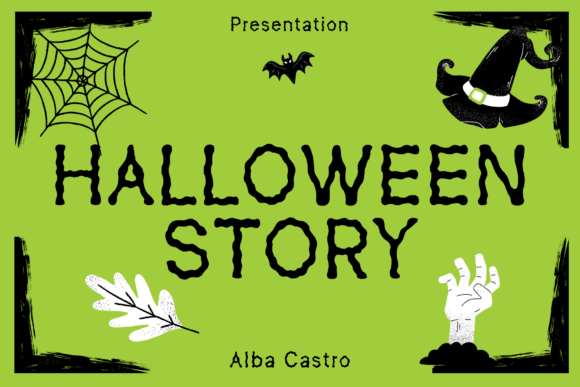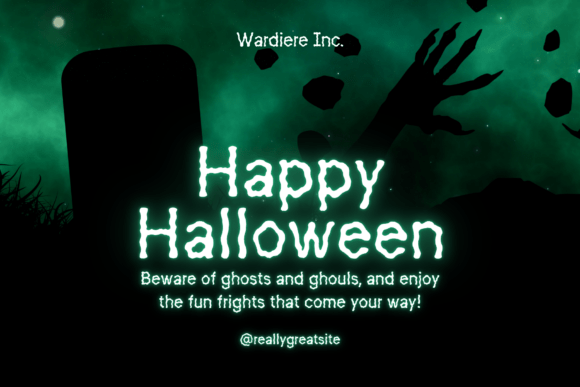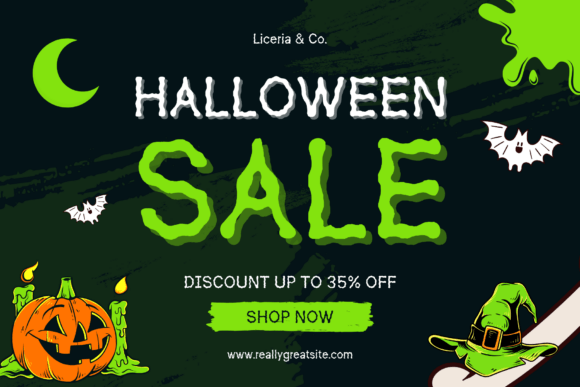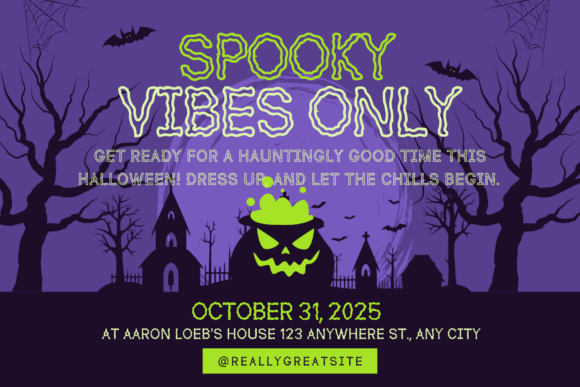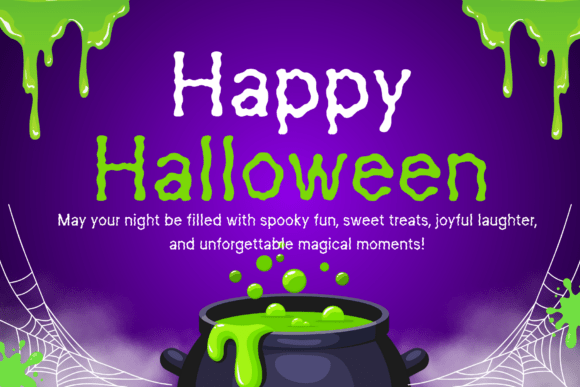
Introduction to Slime Ghost Font
Have you ever been working on a creative project, pouring your heart and soul into it, only to feel like something’s missing? That’s exactly what happened to me when I was designing a Halloween-themed poster for a friend’s party. I wanted something that would grab attention, something that would make people feel like they were stepping into a spooky world. That’s when I stumbled upon the Slime Ghost Font – and everything changed.
This font is more than just a design resource; it’s a game-changer for any creative project that needs a touch of mystery and excitement. With its unique, oozing liquid letters, the Slime Ghost Font is the perfect addition to any spooky design, whether it’s a Halloween poster, a party sign, or a spooky game design. And the best part? It’s available for free download, so you can add it to your design arsenal without breaking the bank.
Whether you’re a seasoned designer or just starting out, the Slime Ghost Font is a high-quality resource that’s sure to elevate your designs to the next level. With its transparent background, you can easily combine it with other design elements to create a truly unique look. So why settle for ordinary when you can have extraordinary with the Slime Ghost Font?
Key Features of Slime Ghost Font
- Unique, hand-drawn design with a high level of detail, making it a great design resource for creative projects.
- Features a transparent background, making it easy to customize and layer over other design elements.
- High-quality design with a resolution of 300 DPI, ensuring crisp and clear rendering in print and digital applications.
- Perfect for designers looking to add a touch of whimsy and personality to their work, with its fun and playful aesthetic.
Honest Review: Slime Ghost Font
I recently stumbled upon the Slime Ghost Font, and I must say it’s been a game-changer for my creative projects. The font’s unique design and high quality make it an excellent addition to any design resource collection.
Here are some of the things I like about the Slime Ghost Font:
- ✨ The font’s transparent background makes it easy to use in any design, without worrying about distracting elements.
- ✨ The font’s quirky design adds a touch of personality to any project, making it perfect for creative projects that need a bit of flair.
- ⚠️ The font may not be suitable for formal or professional projects, as its playful design may not convey the right tone.
- ⚠️ The font’s bold design may be overwhelming if used extensively throughout a project.
Overall, I’m thoroughly impressed with the Slime Ghost Font. Its unique design, high quality, and free download make it a valuable addition to any design resource collection. While it may have some limitations, I believe the benefits far outweigh the drawbacks.
Use the Slime Ghost Font in bold or italic styles to add emphasis to your design. You can also combine it with other fonts to create a unique and eye-catching design. Experiment with different font sizes and colors to get the most out of the Slime Ghost Font.
The Slime Ghost Font is ideal for creative projects, such as posters, flyers, and social media graphics. It’s also perfect for designs that require a high-quality, unique font, such as logos, branding materials, and packaging designs.